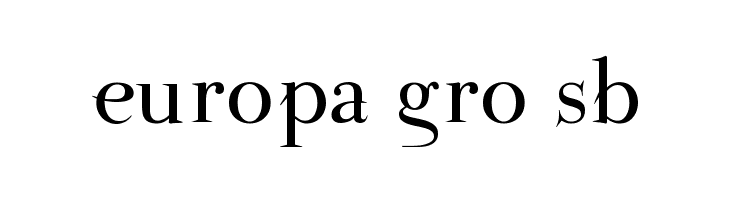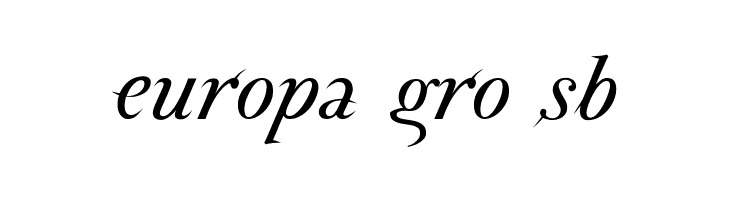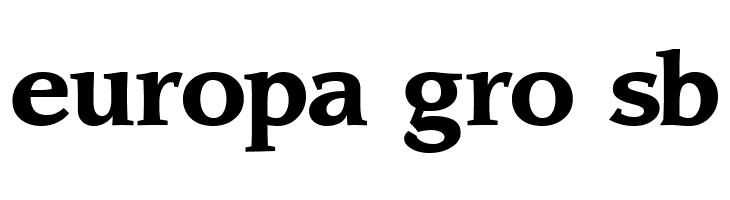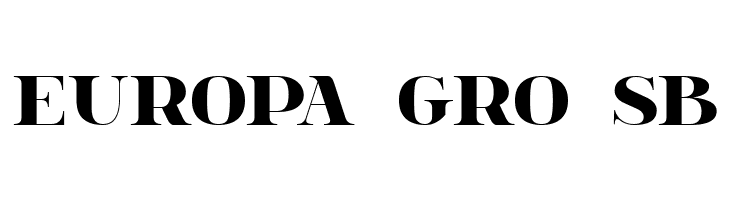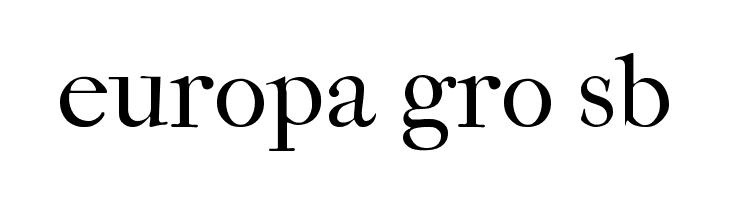
A classic serif typeface with high contrast and elegant serifs.
An elegant italic serif font with graceful curves and refined style.
A classic serif typeface with elegant contrast and sharp serifs.
Elegant serif font with an oblique slant, offering a classic and sophisticated look.
A bold, high-contrast serif font with a dramatic and elegant style.
A classic serif font with high contrast and sharp serifs, exuding elegance and sophistication.
An elegant, italic serif font with high contrast and classic style.
A classic serif font with a historical and vintage feel.